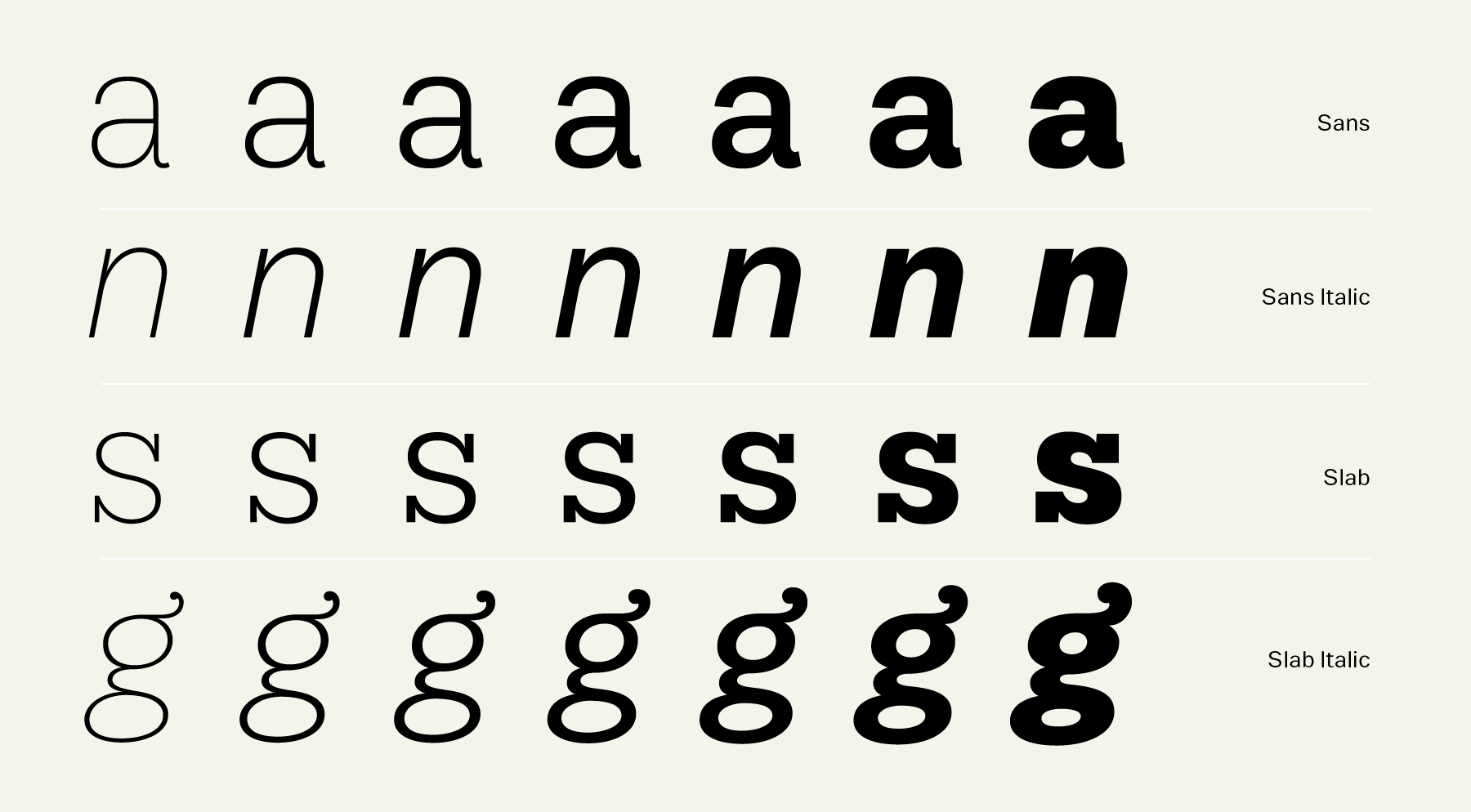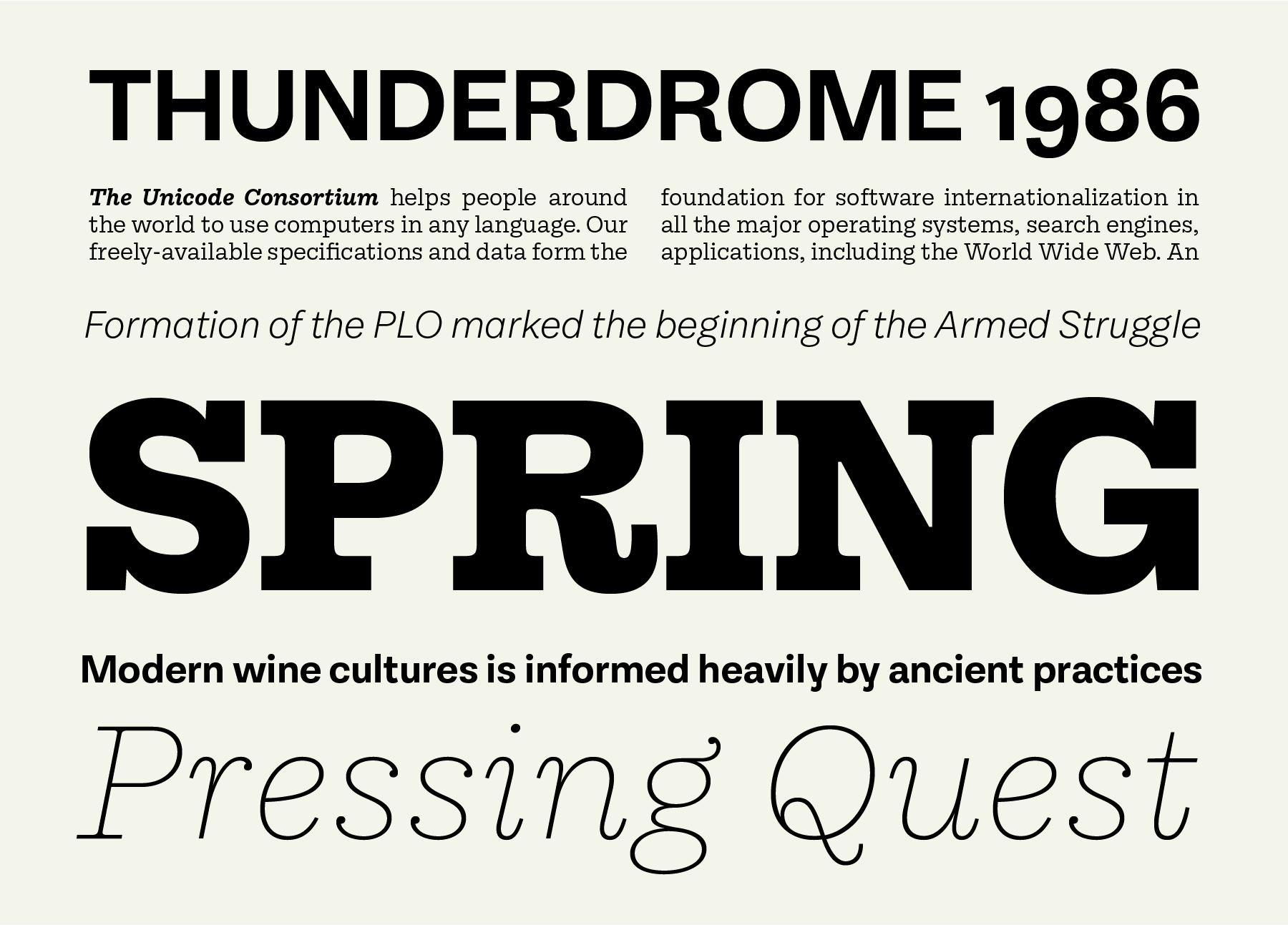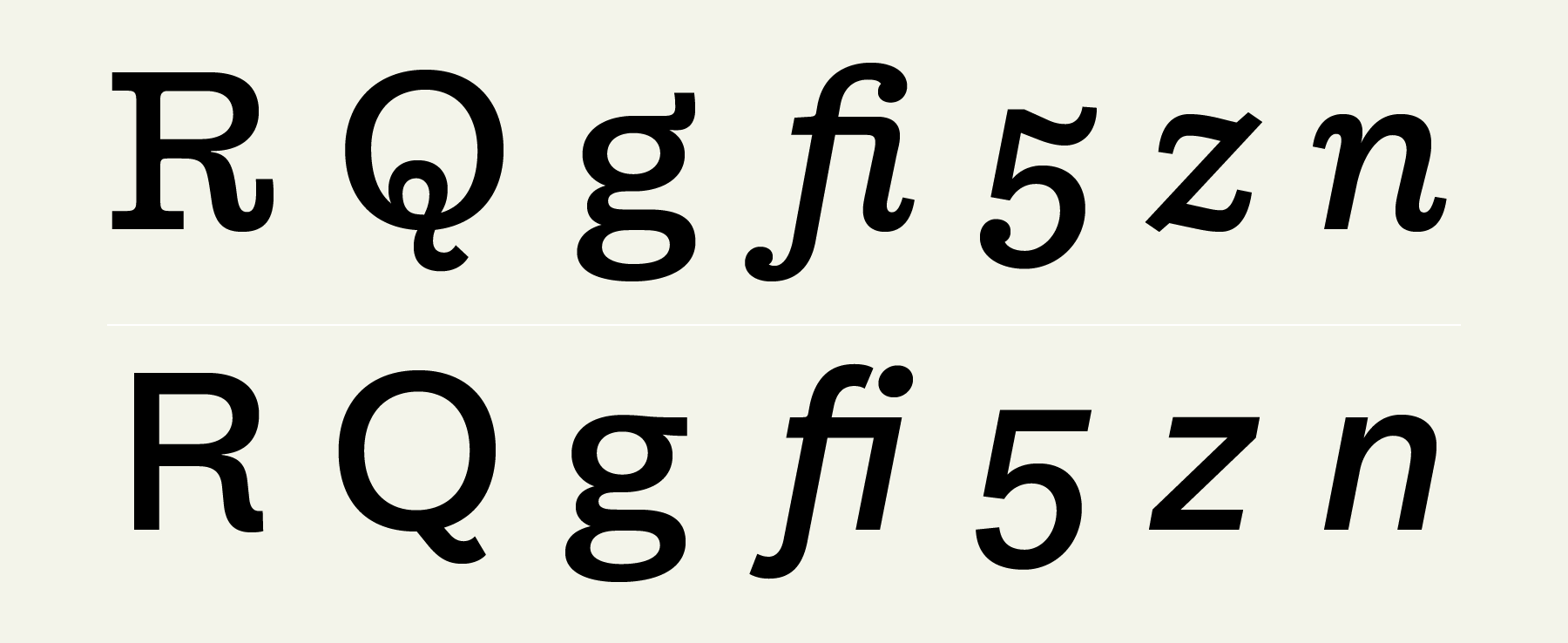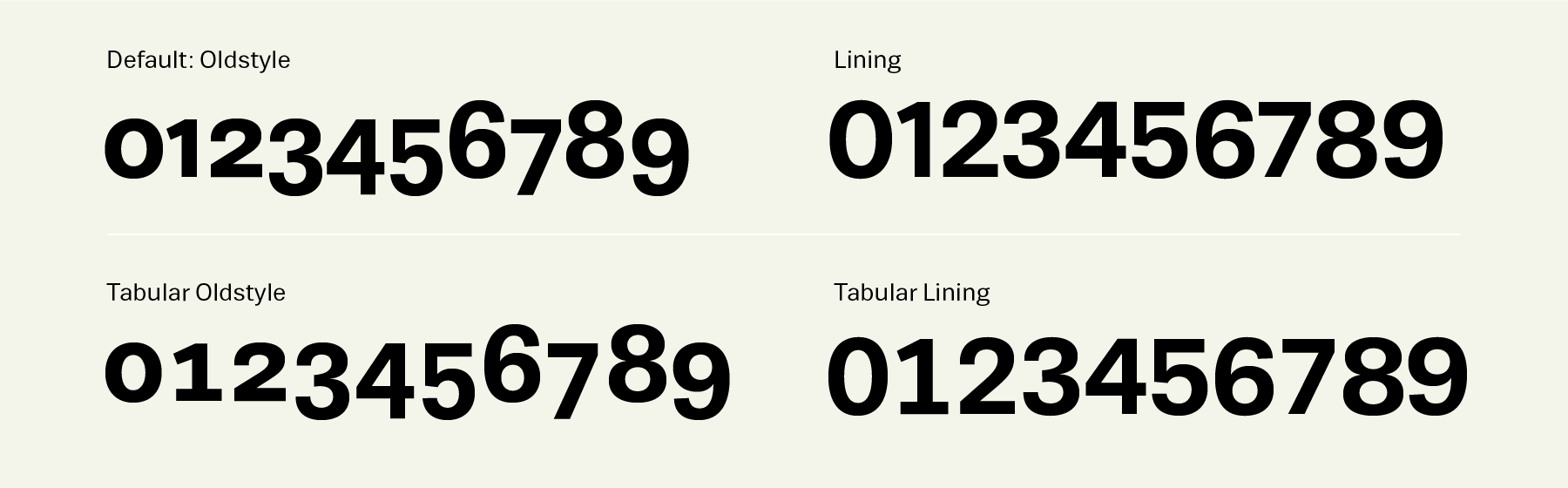
Together, Equitan Sans and Equitan Slab make up an astounding 28-font super family. The two typefaces serve up industrial-era letterforms, refreshed for a new century. In terms of design, these matching sans serif and slab serif faces compromise an anthology of some of the best characteristics of nineteenth century display typography. You could consider them as the steampunk addition to the Indian Type Foundry retail library.
Equitan Sans and Equitan Slab are ITF’s first matching sans serif and slab serif families for the Latin-script. Both typefaces are available in seven weights; each weight has an upright and a italic font on offer. Their character sets include 418 glyphs per font. Equitan Slab’s italics are ‘true italics’, while Equitan Sans offers a more oblique solution. Although each typeface is great on its own, Equitan Sans and Equitan Slab should be used together. This super family is ready for use in branding projects and packaging design. Although Equitan’s designer, Diana Ovezea, was inspired by a specific typeface – Palmer & Rey’s 1884 ‘48 point Antique’ – Equitan is not a literal revival. While developing Equitan Sans and Equitan Slab, Ovezea aimed for a low-contrast letter forms, as you might expect in a slab or sans family.
Equitan Sans, with its closed apertures and arched shapes, resembles nineteenth century grotesques and offers a quiet balance to the outspokenness of Equitan Slab, while retaining similar skeleton forms. Despite this, it is not sterile, like so many of the mid-twentieth century neogrotesk typefaces. Equitan Slab’s uppercase create an almost woven pattern when set together, because of their oversized serifs. The italics follow suit, and include long outstrokes. These curls create a playful take on recognisable elements of the ‘Scotch Roman’ genre. Ovezea wanted to make a type family that is both sturdy and flavourful.
Wherever possible, the counters in both of the families are rounded, such as in b, d, p, q, 6, or 9; even the bottom counter of the ‘g’ has an atypically rounded counterform. The same two-storey form is used for the lowercase ‘g’ in both the Equitan Sans as well as the Equitan Slab fonts. However, its ear curls up in the slab serif fonts, while it lies flat in the sans. The most recognisably ‘Equitan’ character in the whole super family is the lowercase ‘y’, which has a straight tail, instead of a diagonal one. From Equitan Slab, the most striking characters are the arched-up legs of the capital ‘R’ and lowercase ‘k’, as well as the tail of the capital ‘Q’. The default numeral style in all 28 fonts are proportional oldstyle figures. Over an OpenType feature, tabular versions are available, as well as lining figures.
The name ‘Equitan’ is an anagram of the word ‘Antique’. Although slab serifs are typically associated with type classification terms like ‘Egyptian’ or ‘Ionic’, the name of the the first slab serif printing type – as shown in Vincent Figgins’s 1821 specimen – was ‘Antique’. Antiques were the predecessors of the Clarendon style typefaces, which began appearing in 1844. Initially, typesetters would use Clarendon faces to help emphasise something in a text. Eventually, designers would begin using bolder weights of the text face instead, and Clarendon types went on to be used in all sorts of environments.
Palmer & Rey’s 1884 ‘48 point Antique’, which set Ovezea off on the journey that would lead to Equitan Sans and Equitan Slab, is rather naïve by today’s standards. Its lowercase letters are optically overcorrected, and they don’t exhibit enough consistency for contemporary graphic designers to want to use them. Still, Ovezea was fascinated by the old-fashioned skeleton forms of these letters, with their very long serifs and comparatively closed apertures. It seemed as if they were hiding a secret elegance that she could only release by making a new typeface. In fact, Ovezea’s biggest achievement in Equitan Sans and Equitan Slab was her ability to convert centuries-old display ideas into working text letterforms for twenty-first century use.